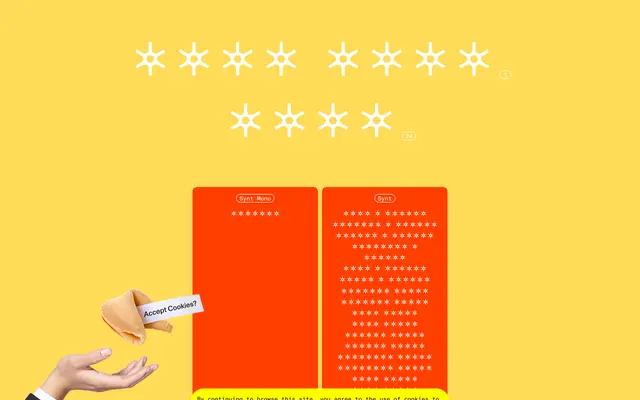
Synt
Dinamo Typefaces · Kaj Lehmann
A unitised reimagining of 19th century modern faces by Kaj Lehmann, built on a parametric stem rhythm and three distinct styles of italic slant.
Drawn from a typeface used in Theodore Low De Vinne's 1900 printing, Synt brings a strict parametric rhythm to the didone tradition, maintaining equal spacing between and within every stem. The family spans six weights with true italics at 16°, a slanted variant at the same angle and a Turbo Slant at 32°, all accessible via a variable font file. A monospaced cut and a set of musical glyphs extend its usefulness across apps, podcasting and streaming platforms.
Synt is described as a reimagining of 19th century modern faces, drawing from a typeface used in an 1900 book by Theodore Low De Vinne, placing it firmly in the didone/modern serif tradition with its emphatic vertical contrast and unitised rhythm.